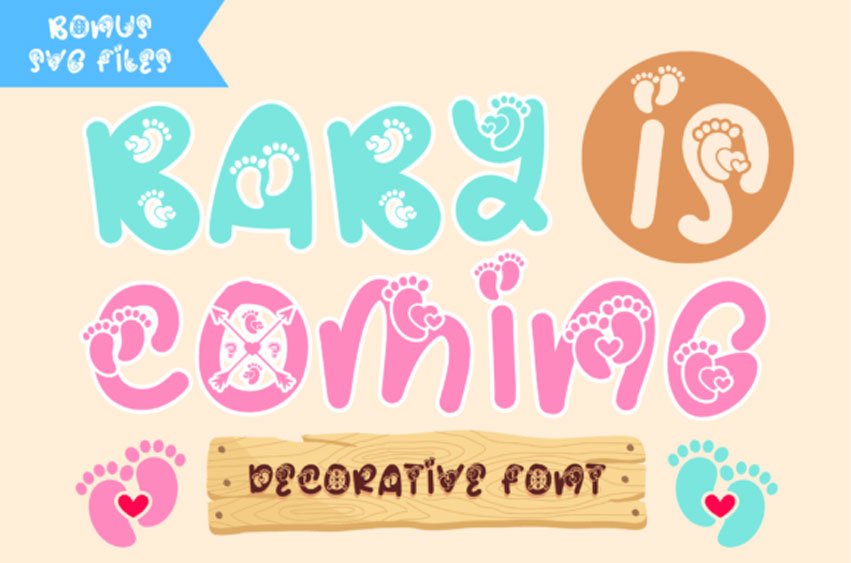
Baby is Coming Font is a cute decorative font. It embodies playfulness and authenticity and is the perfect choice for all your favorite projects, or even for blog posts, logos, branding, ads, invitations, greeting cards, planners, photo albums, decorations, and much more.
Baby is Coming Font Preview